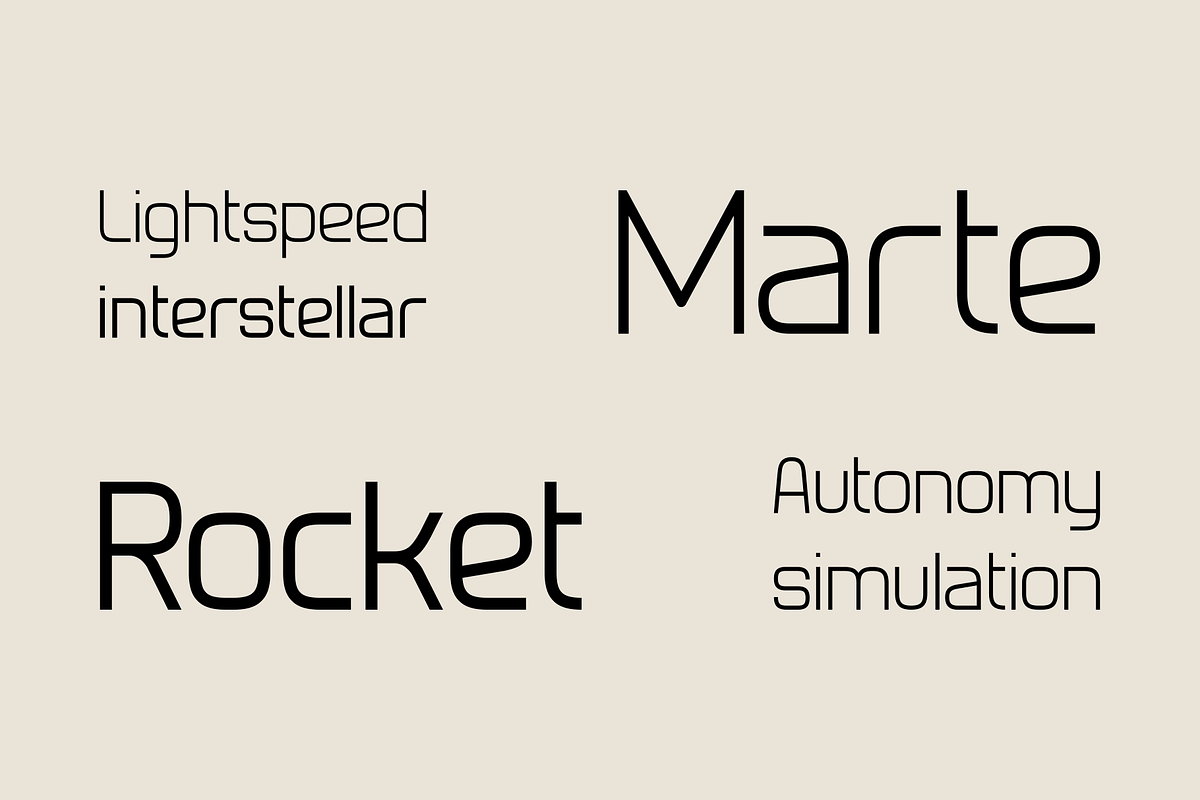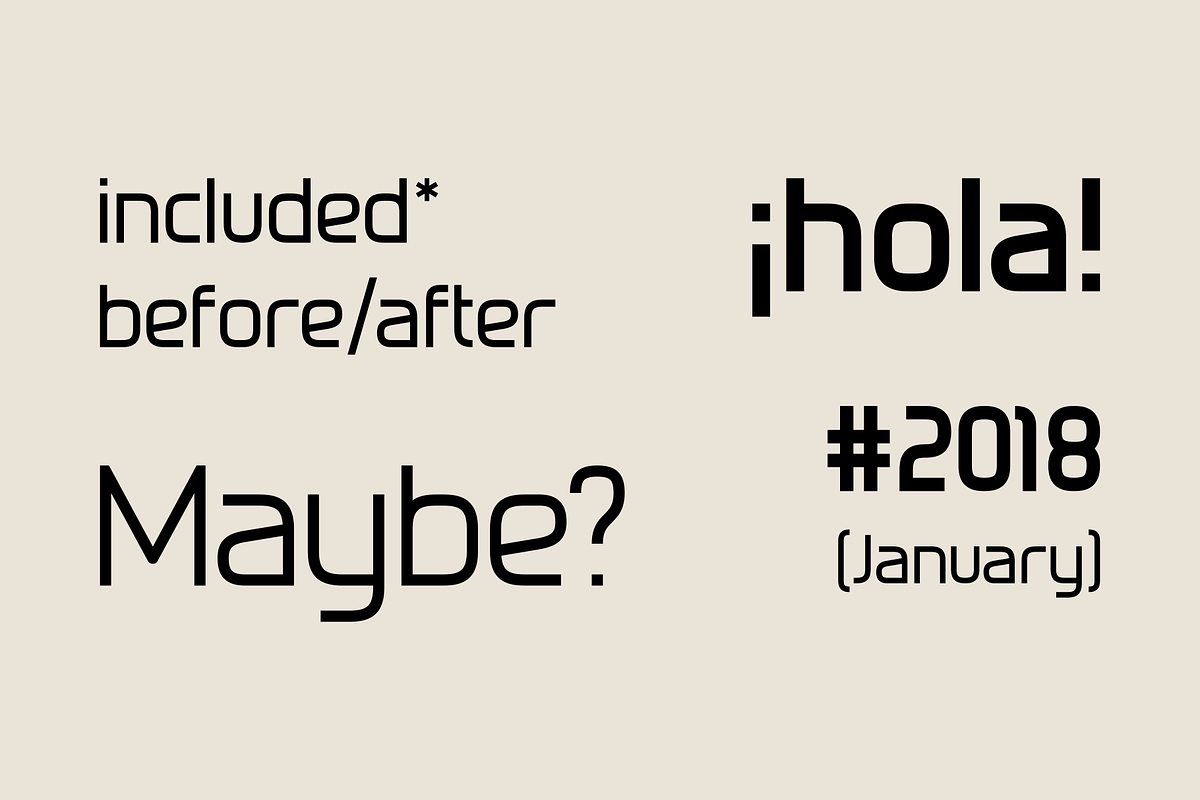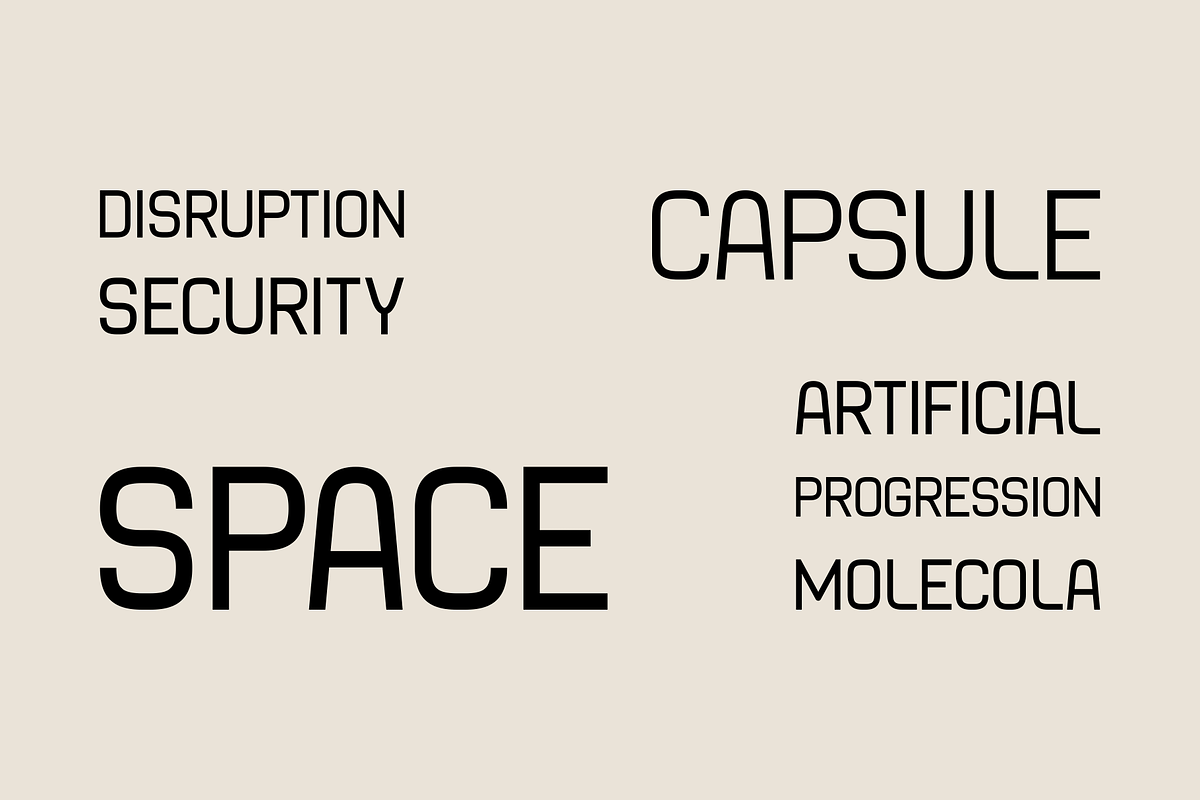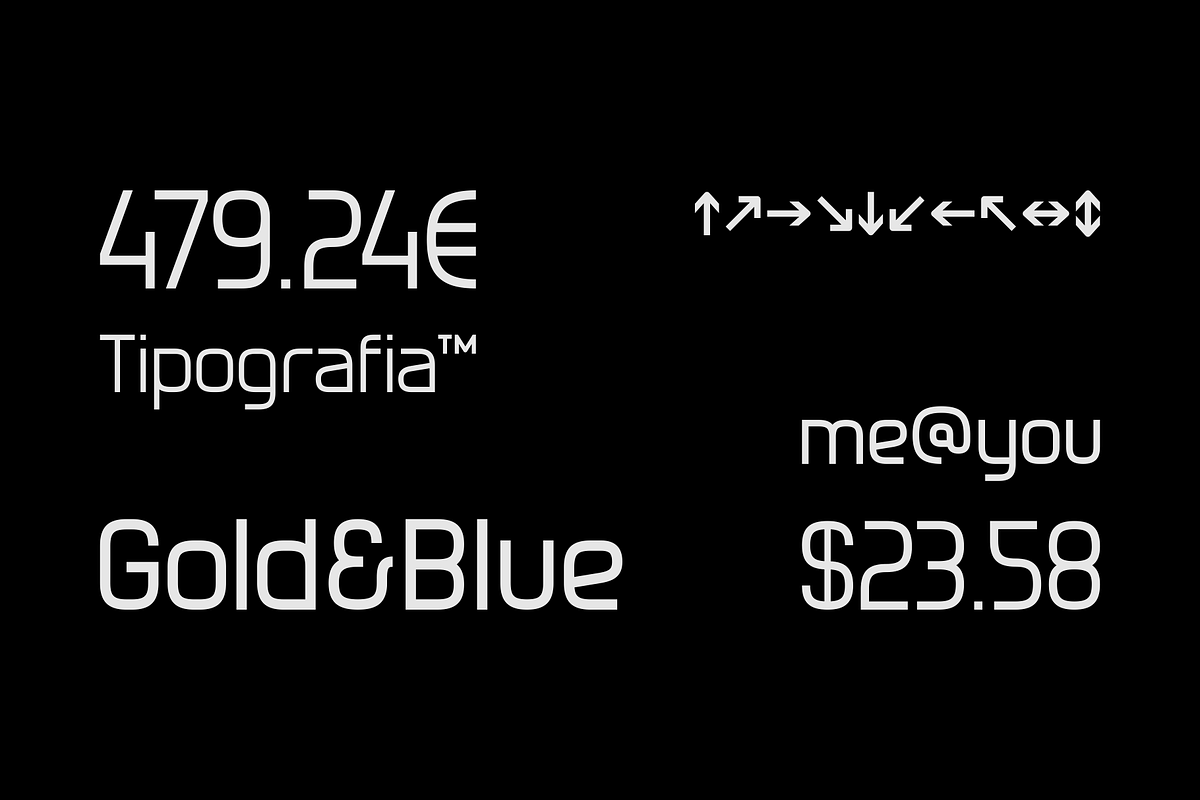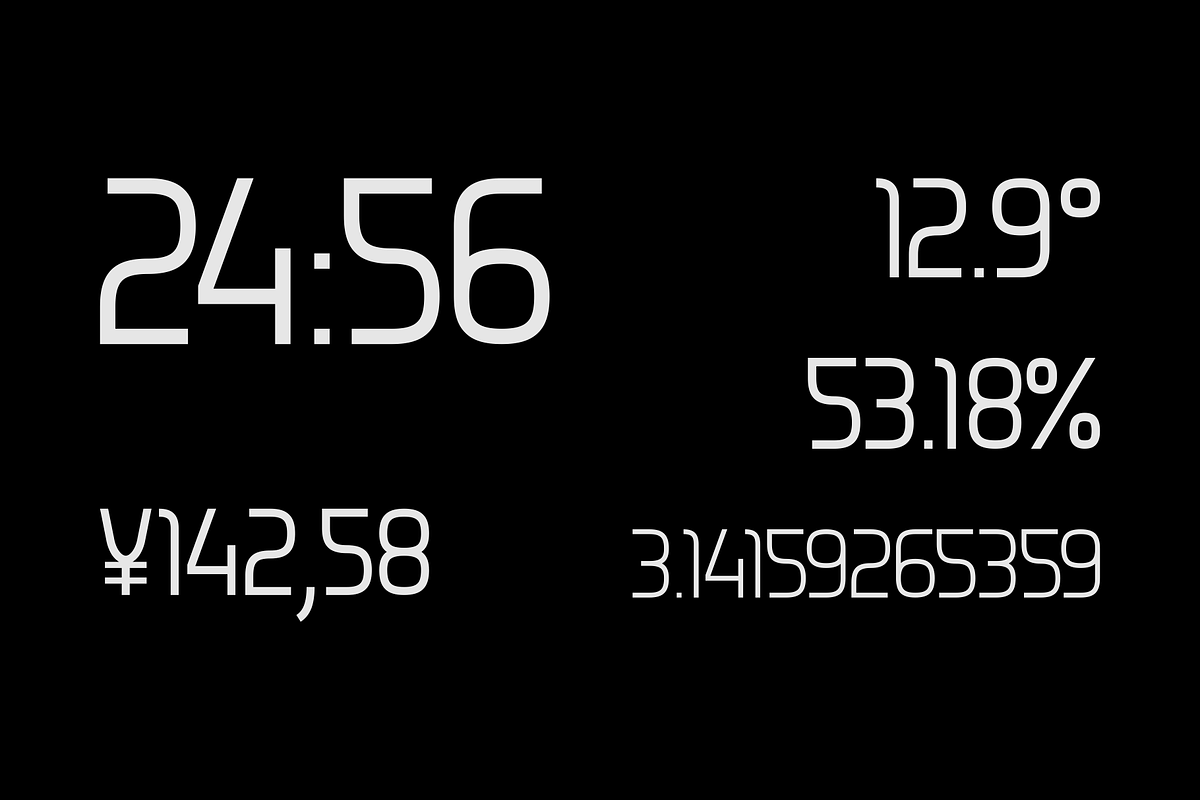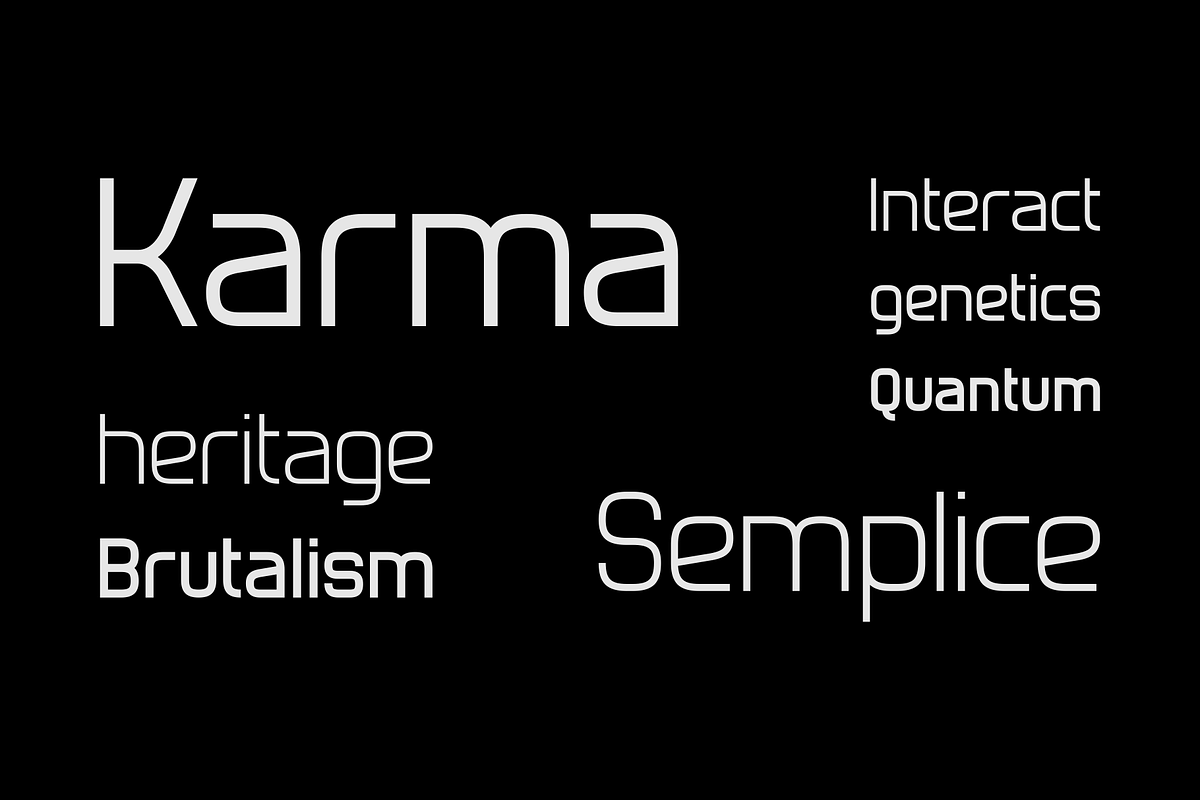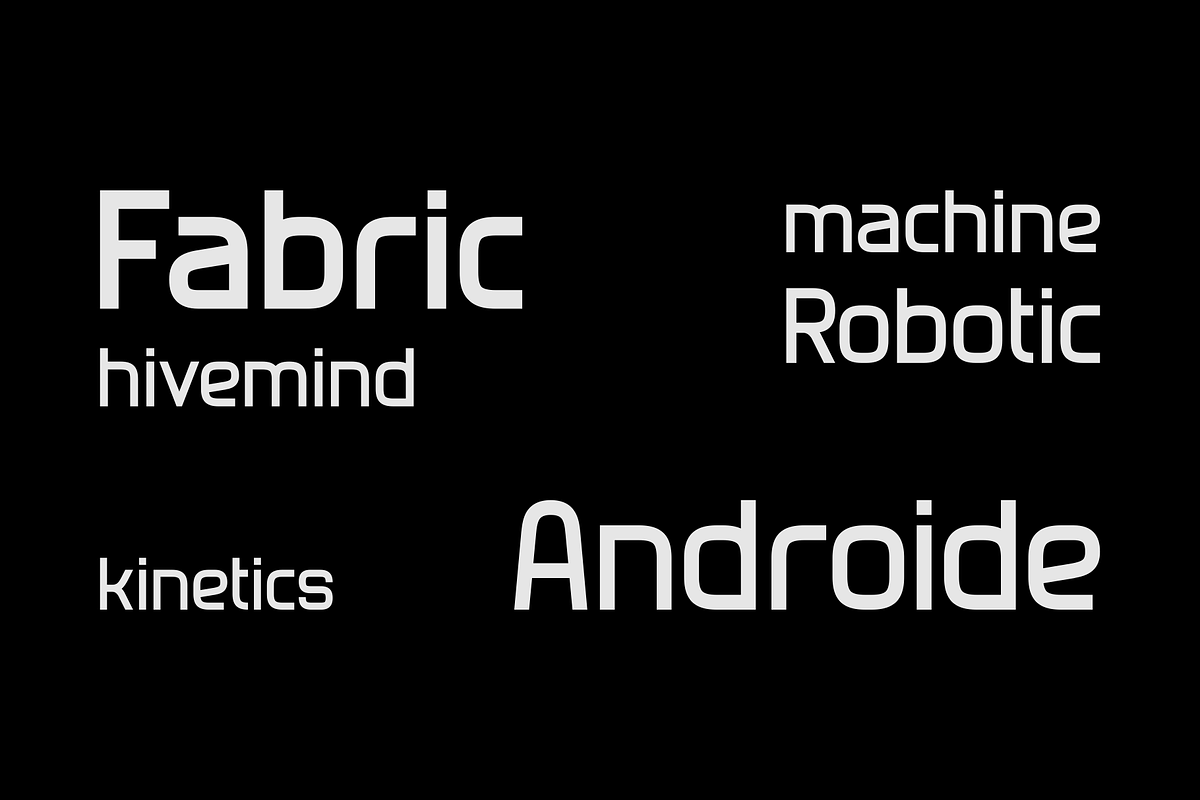
Stoica - Font Family
Stoica is a font family for communication to the point.
• 114 Languages • 508 Glyphs • 5 Weights • 5 Styles
Stoica - Font Family by Stefano Giliberti fits naturally into Branding, posters, packaging, typography.